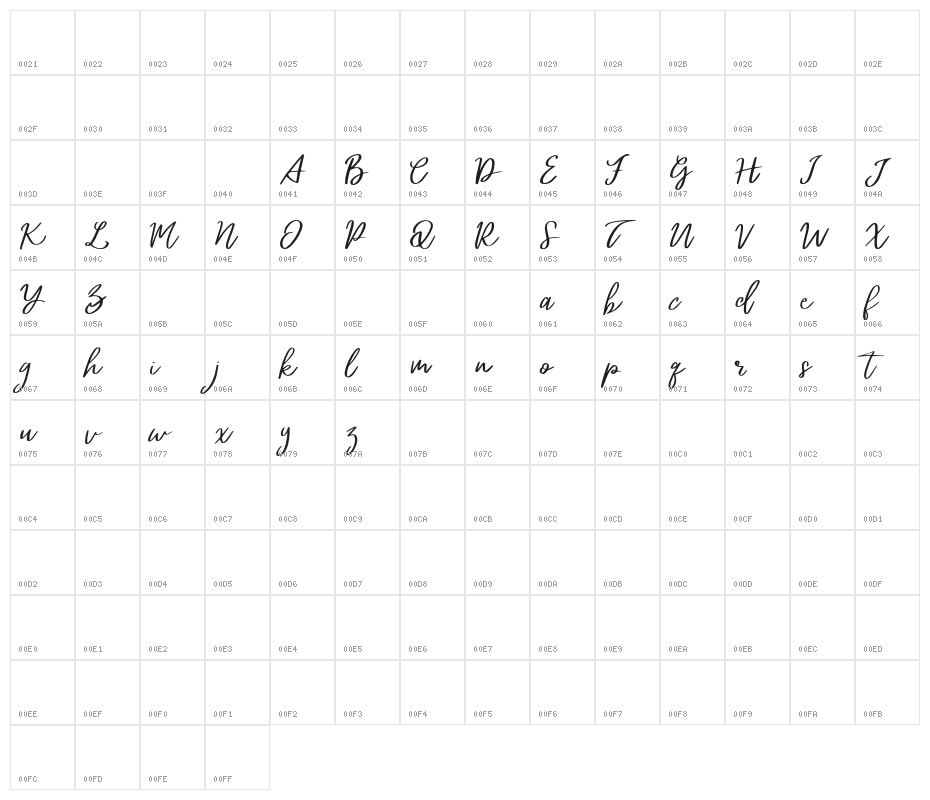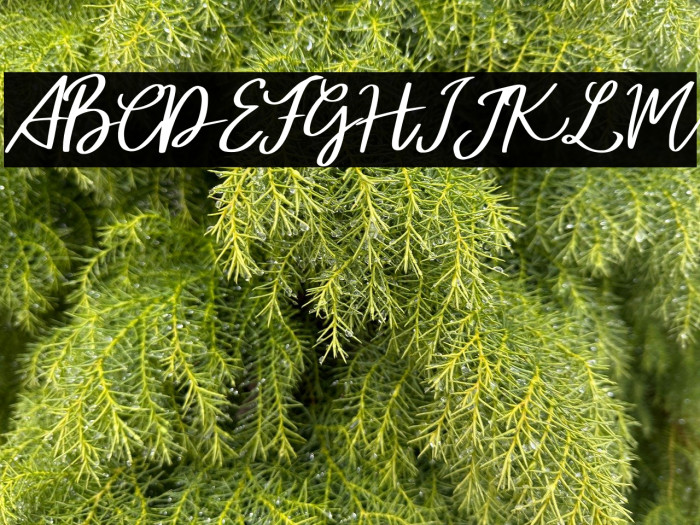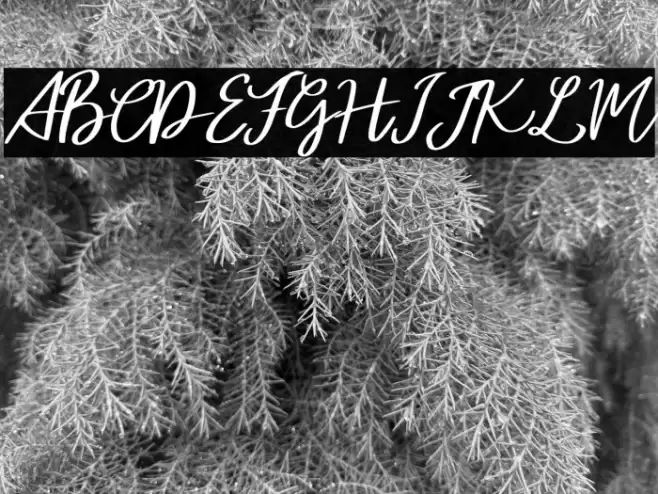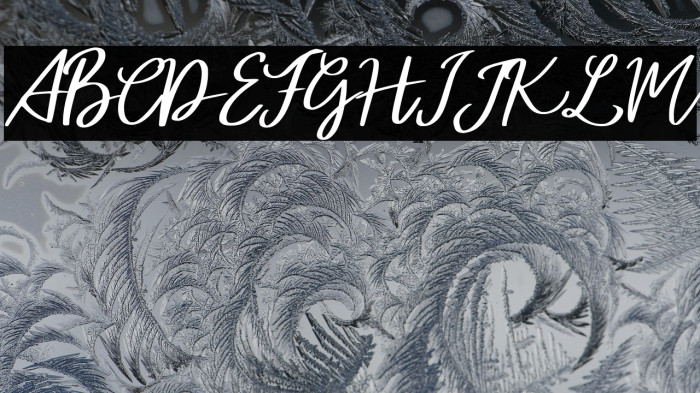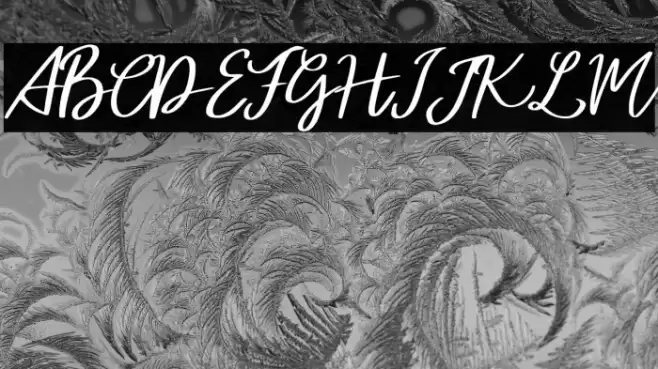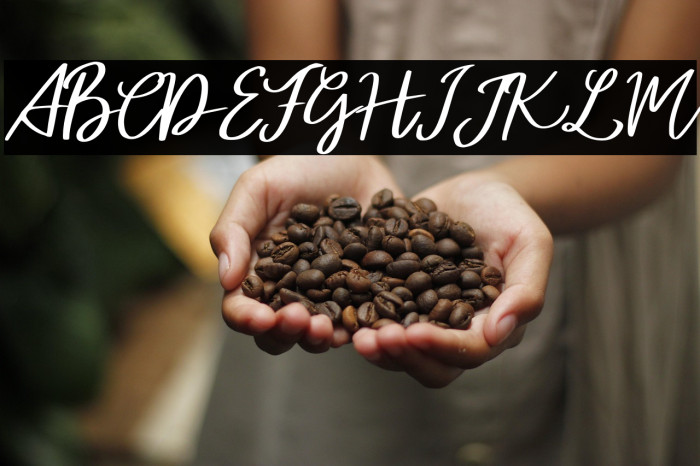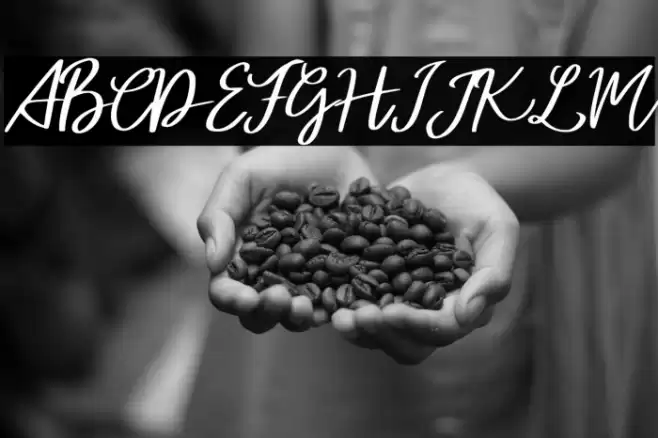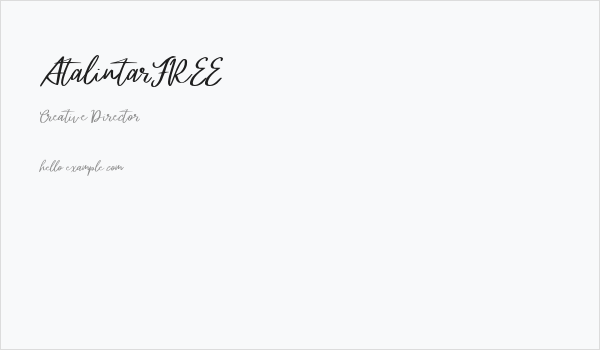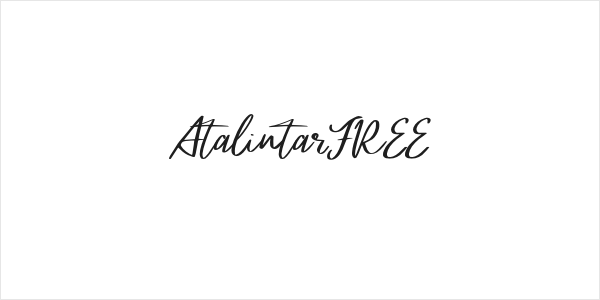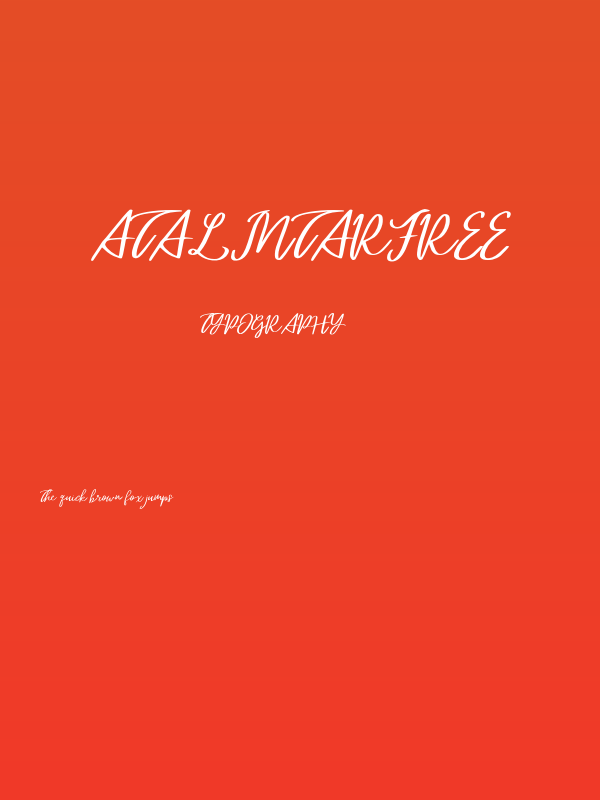
AtalintarFREE Font
AtalintarFREE Description
This font features a flowing, cursive style with elegant, sweeping strokes that give it a handwritten appearance. The uppercase letters are bold and expressive, with a slight slant that adds a dynamic feel. The lowercase letters maintain a consistent flow, connecting smoothly to create a cohesive look. The overall design is both sophisticated and playful, making it suitable for a variety of creative projects. The characters are well-balanced, with a moderate contrast in stroke thickness that enhances readability while maintaining an artistic flair.
| Proposed Projects | Ideal for wedding invitations, greeting cards, branding, and social media graphics. |